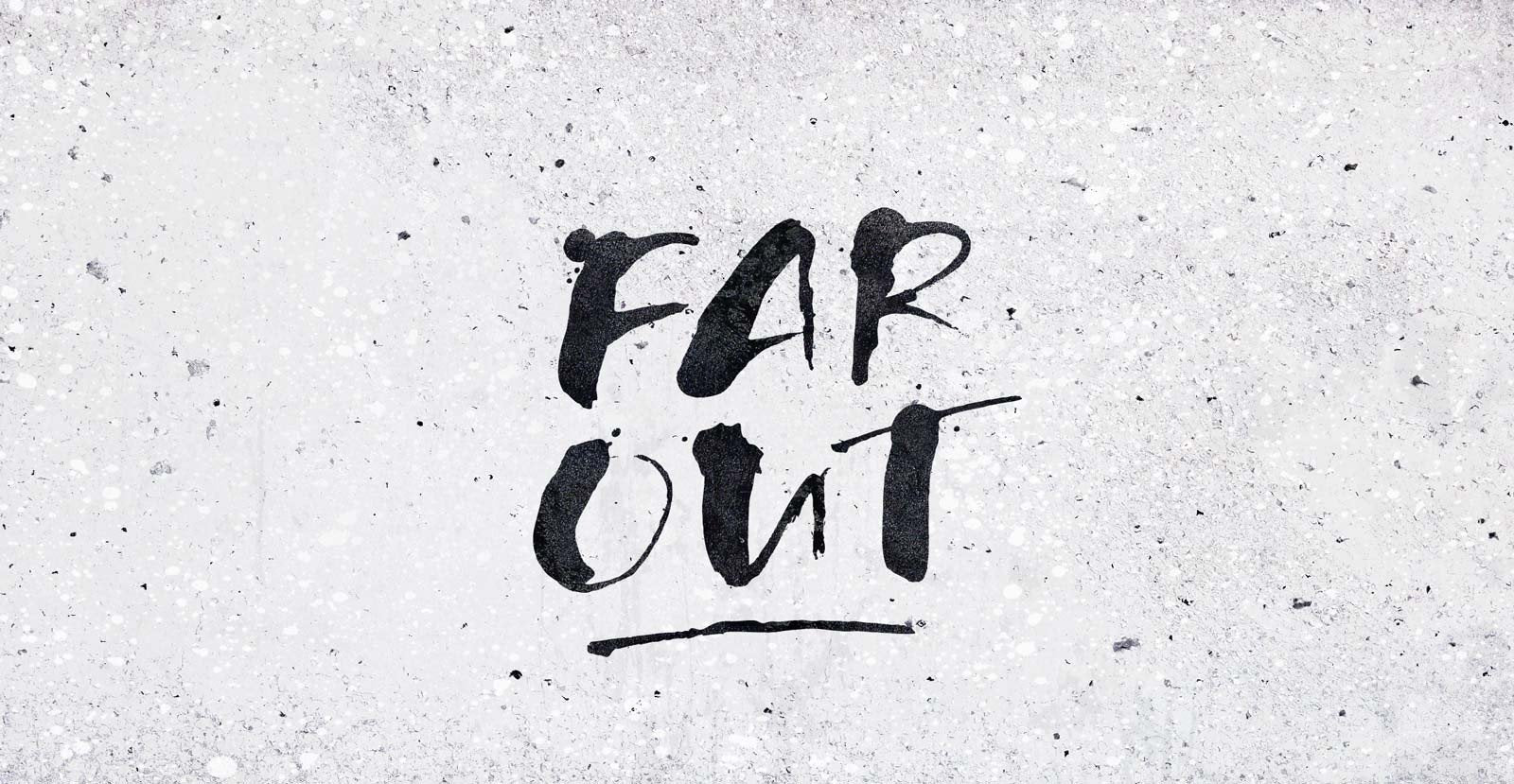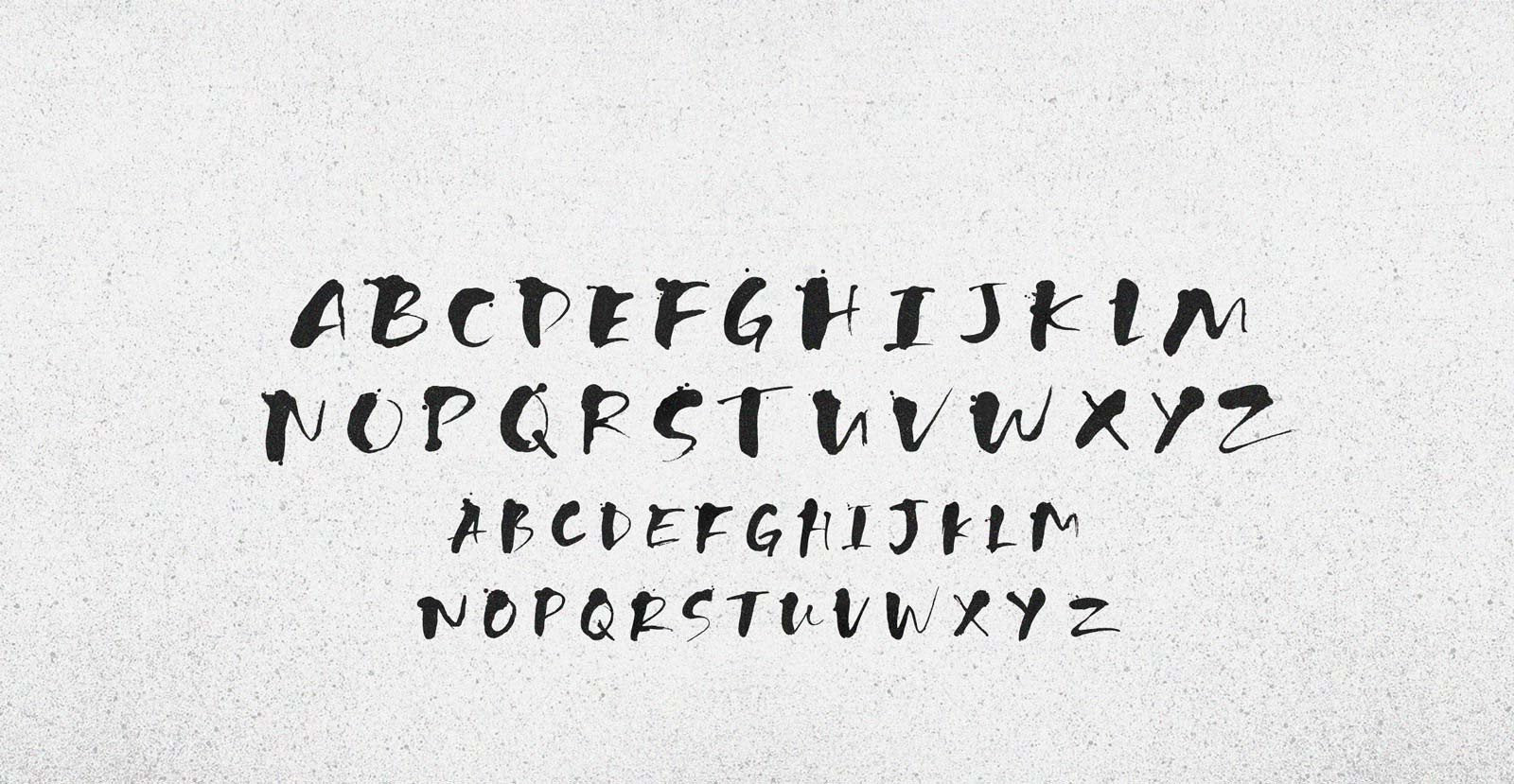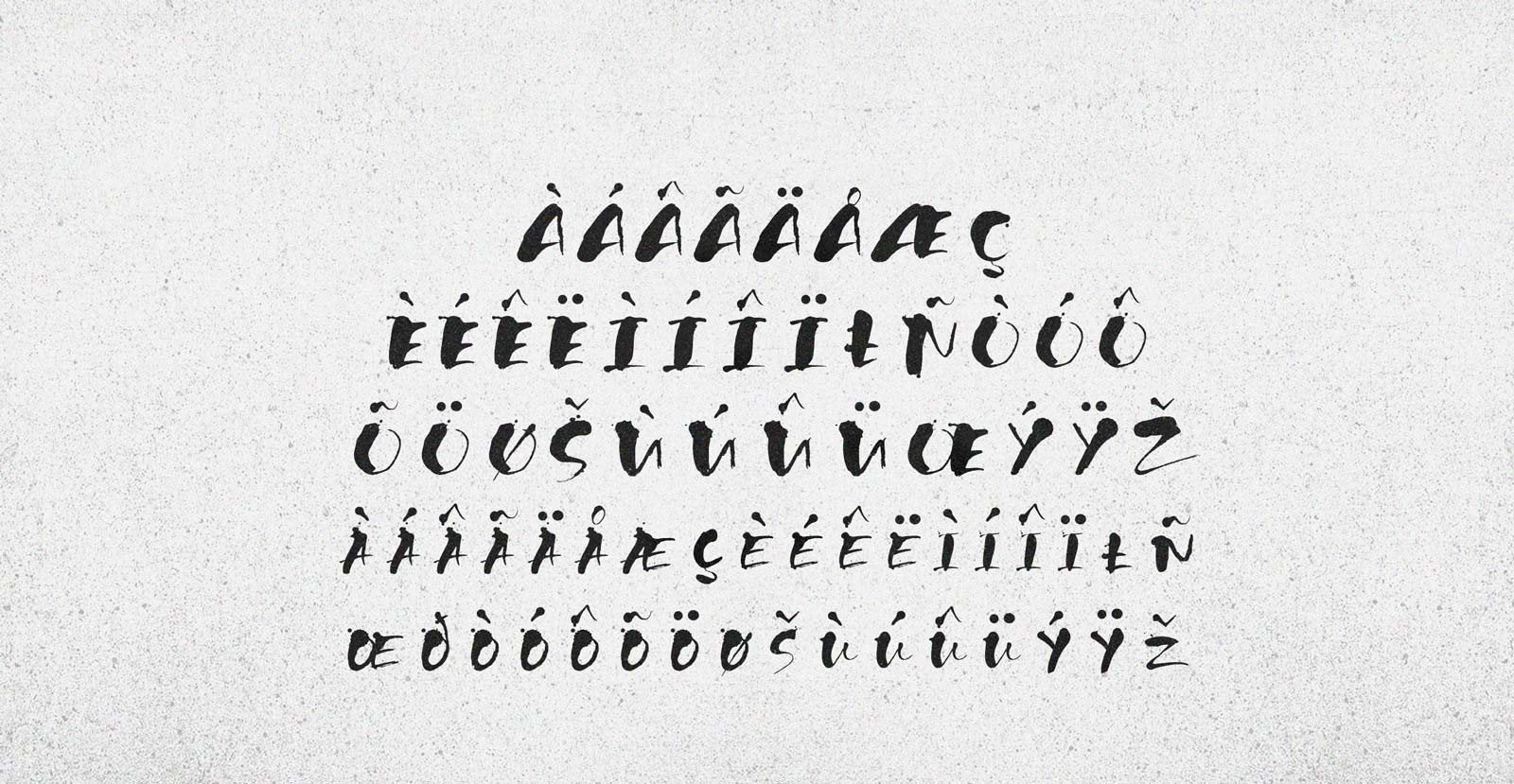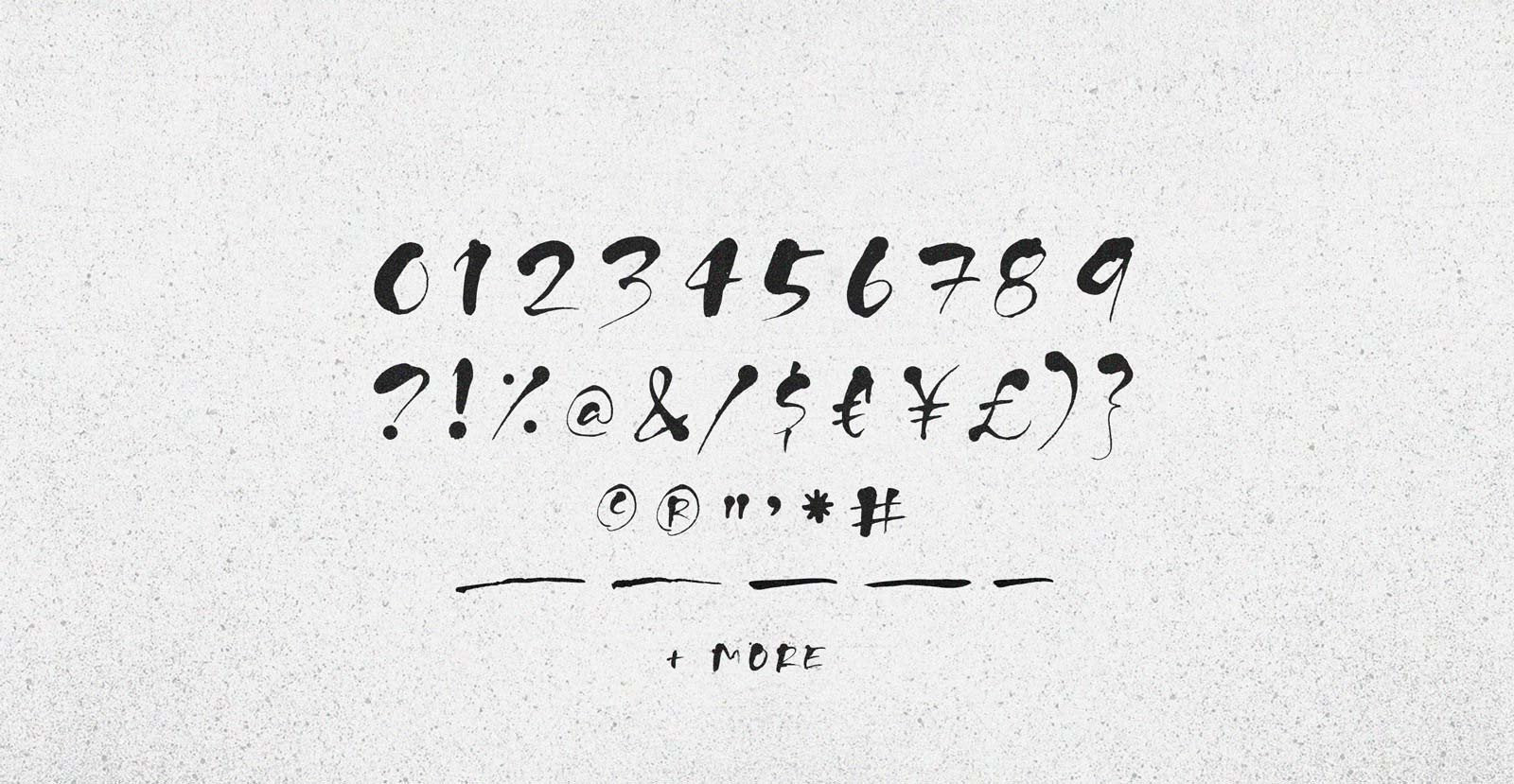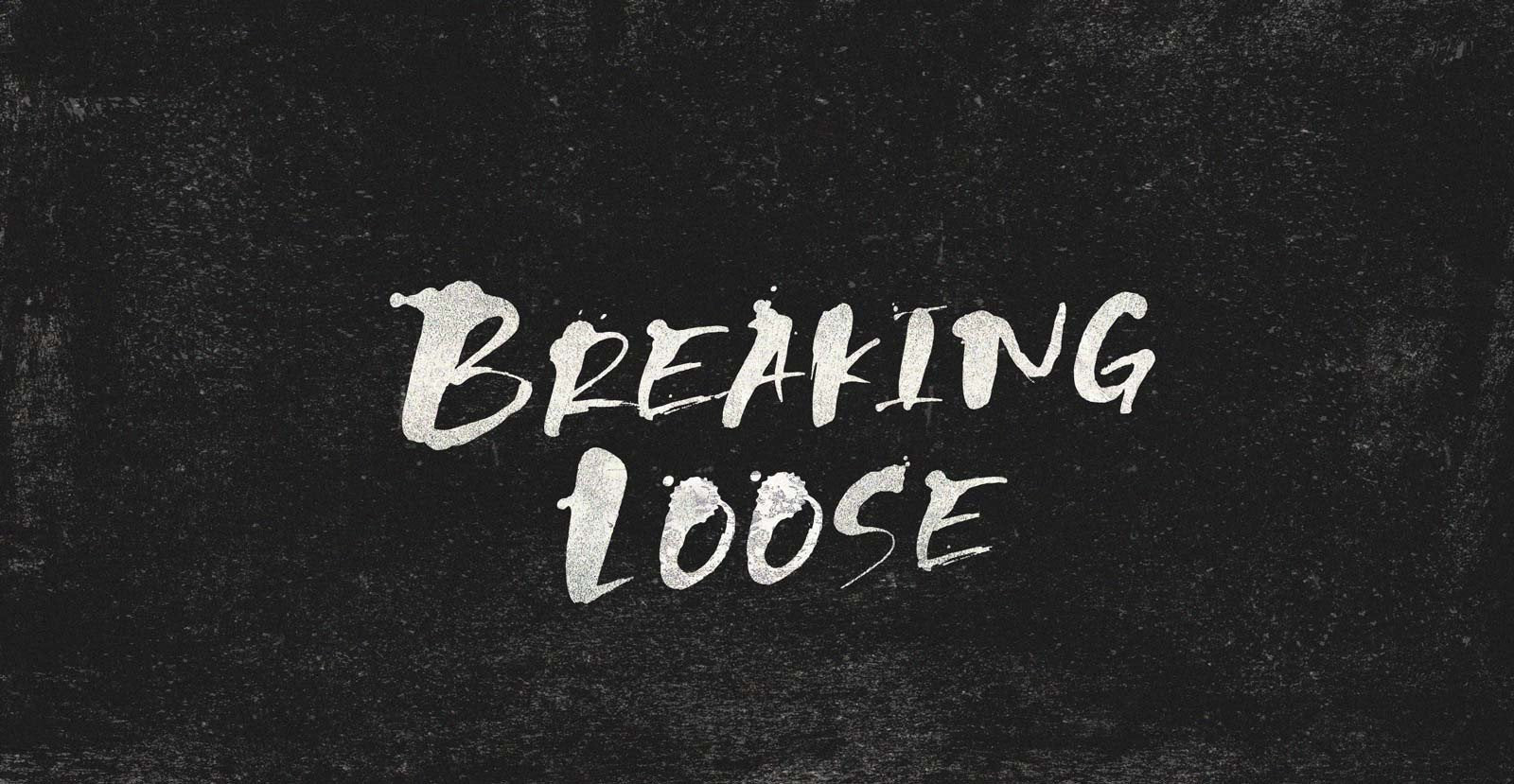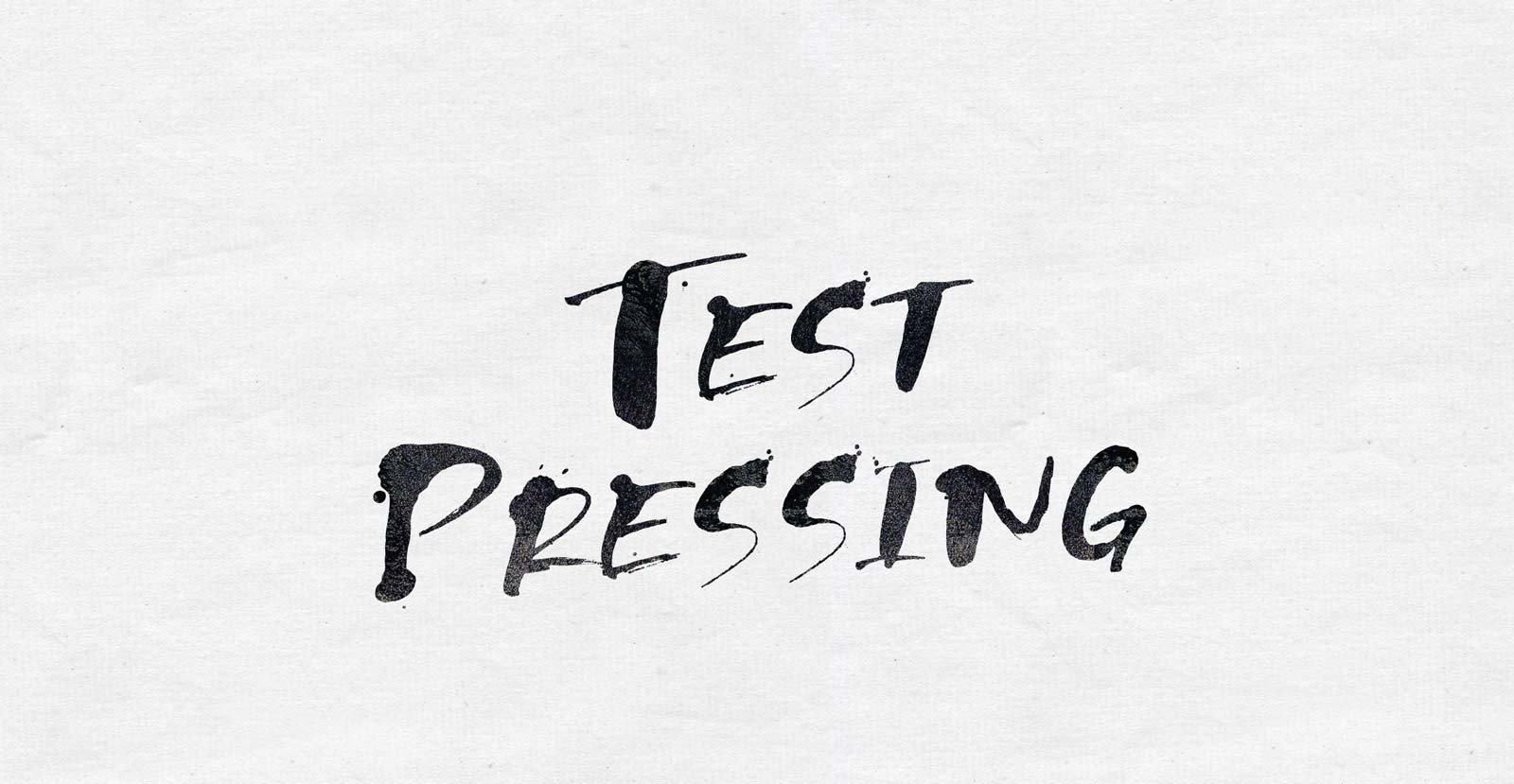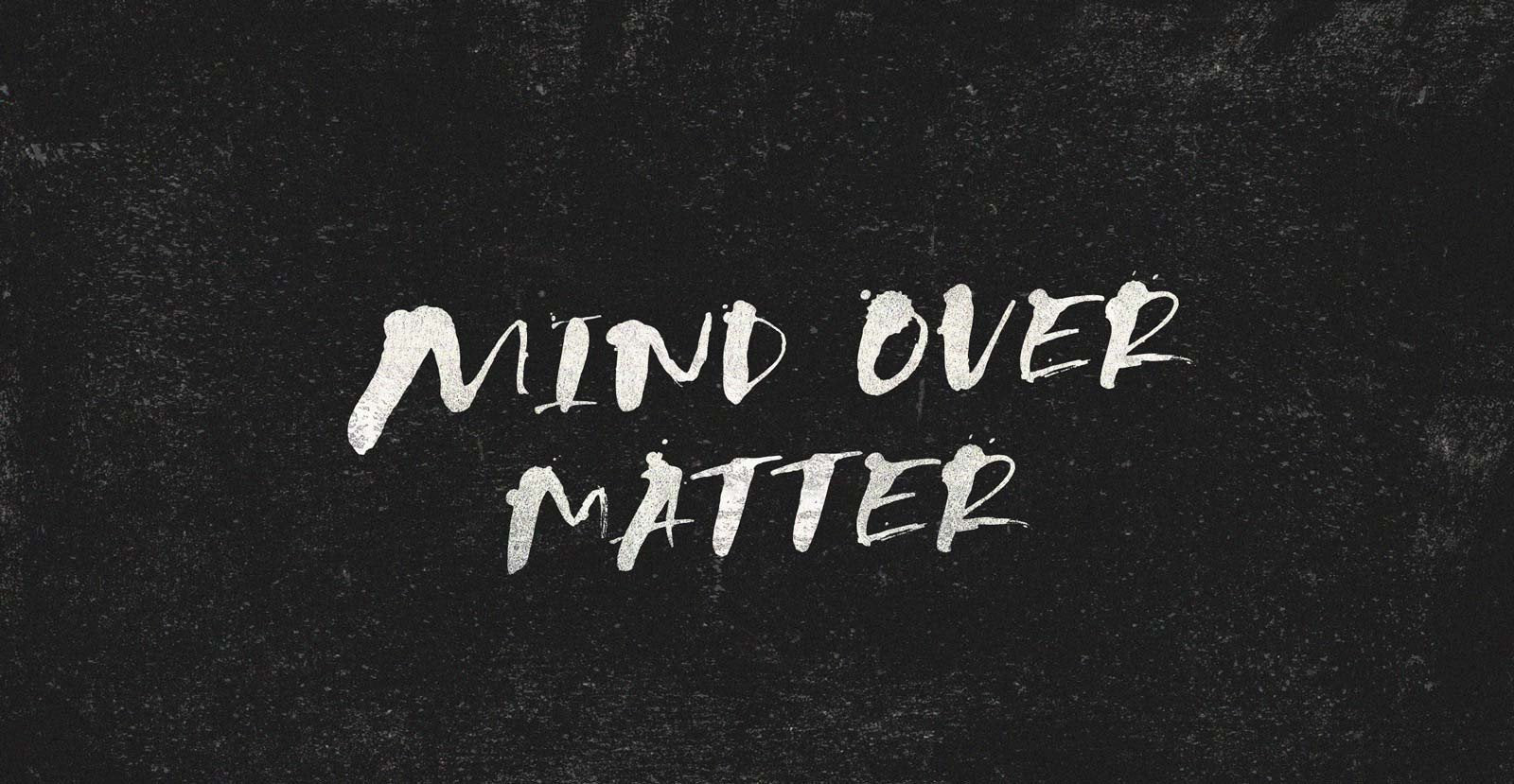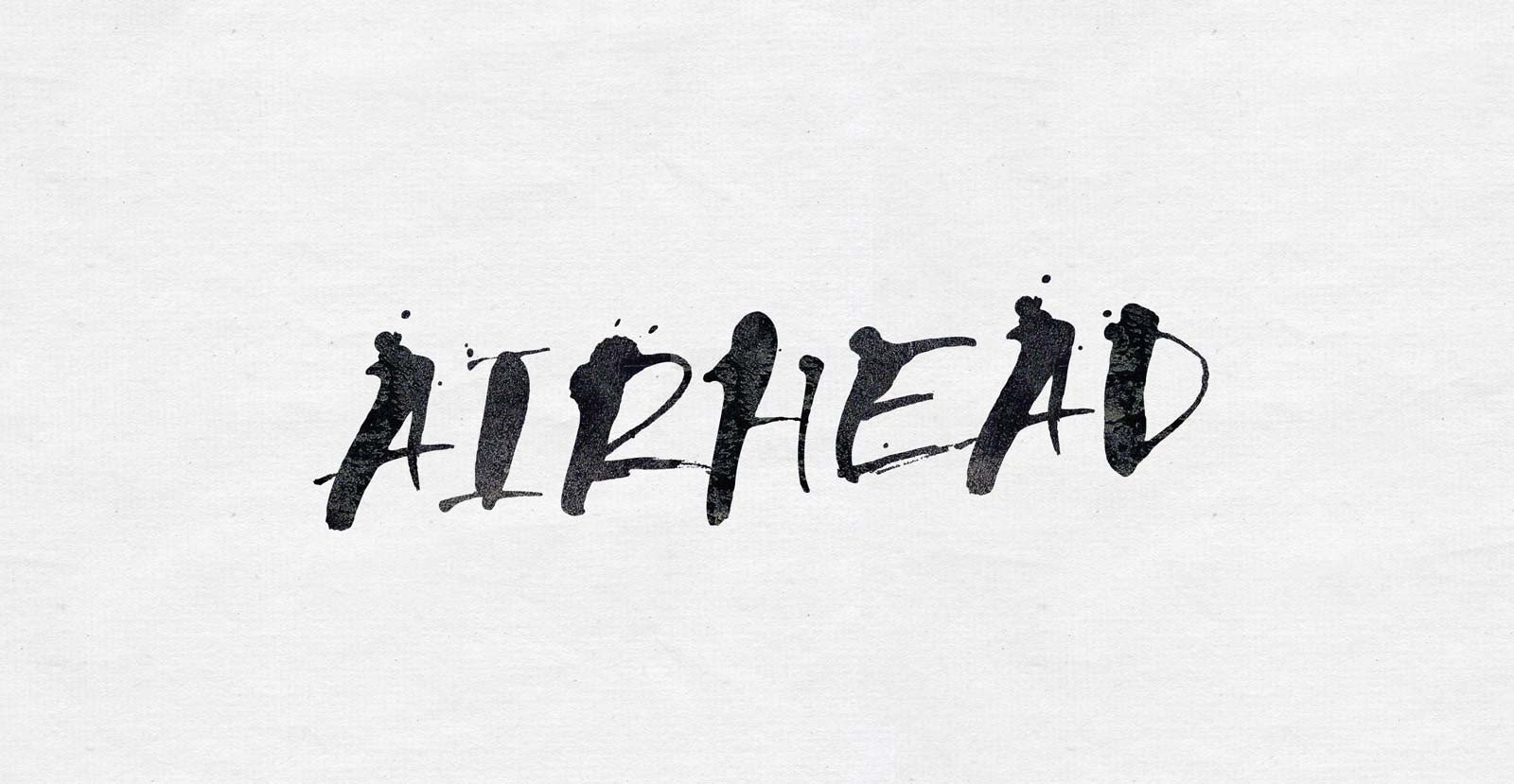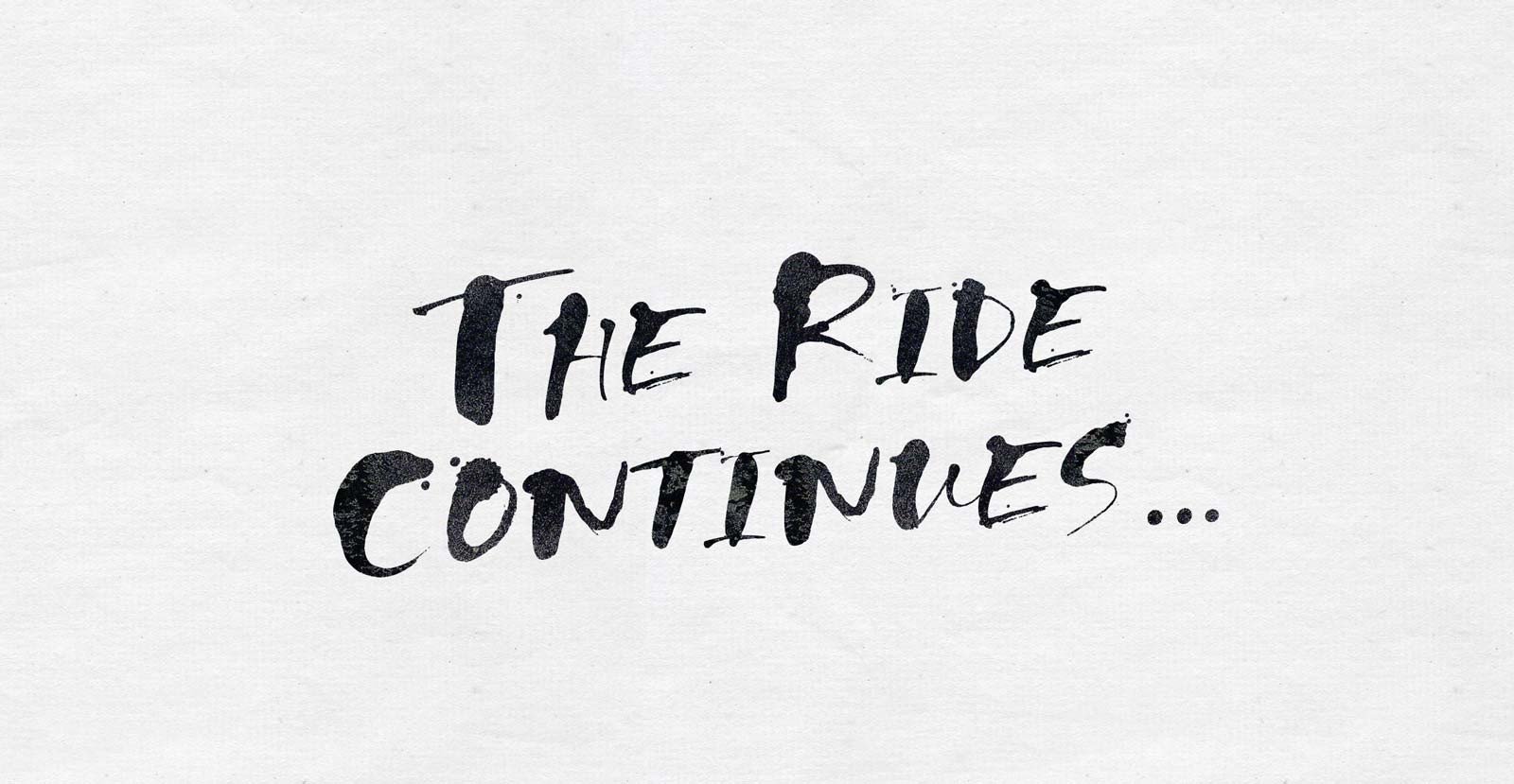
Far Out
Handwritten Brush Font
Dig this: we digest three-dimensional food and breathe three-dimensional air and flatworms, which diffuses nutrients and oxygen through the two-dimensional "space" of its body, are all like, "Far Out!". But aliens eat four-dimensional food and process it in space-time "organs" that digest food before we even perceive its consumption. Far Out!
• Ligatures & underliens